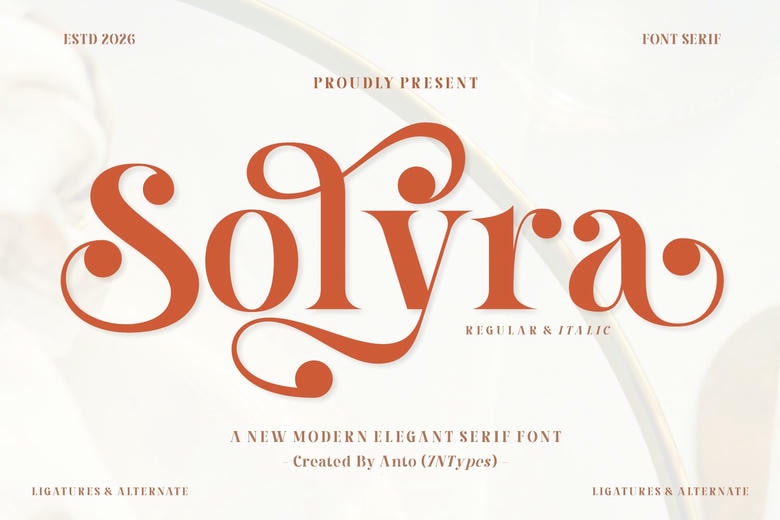
Solyra Font
Solyra is a serif font that is based on the eclectic blend of the vintage and contemporary styles. Solyra embodies love, joy, and warmth, which are the best features of Romantic, Love, and Valentine Fonts. The jovial Heart Swash style is suggestive of the fact that they are used on birthdays and on tickets to happy events as well as provide the loud sophistication of a Serif Font typeface. The nostalgic sense of Retro and Vintage Fonts is gently touched by Solyra and perfectly blends with the smooth touch of Modern Fonts.
Whether it is a special moment with the help of Photography Fonts or the subtle beauty of your brand with the help of Branding Fonts, Solyra is a flexible family of fonts that will make an impression. It has a variety of style palette such as Regular and Italic which is the ideal option in designing the packaging as well as in the creation of greeting cards or even book covers and magazines.
In addition to beauty, Solyra is equipped with multilingual support, which qualifies it to be an Authentic and universal font, and one everyone can understand. It adds an unmistakably charming and elegant touch, therefore, whether you are making an iconic logo, a catchy t-shirt design, or a quote that is trending.
Solyra Serif Font